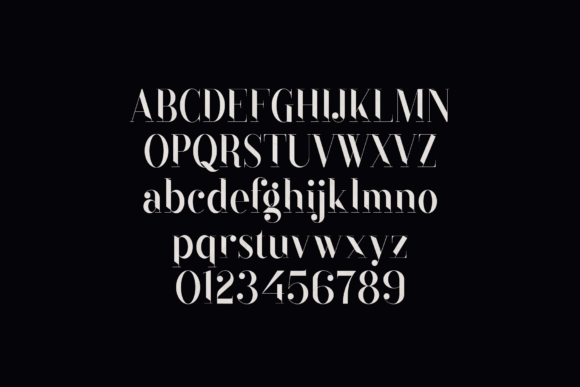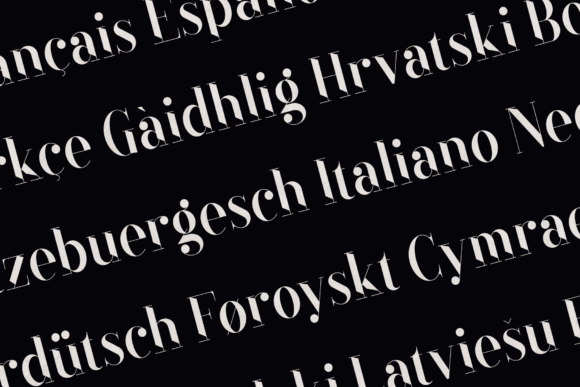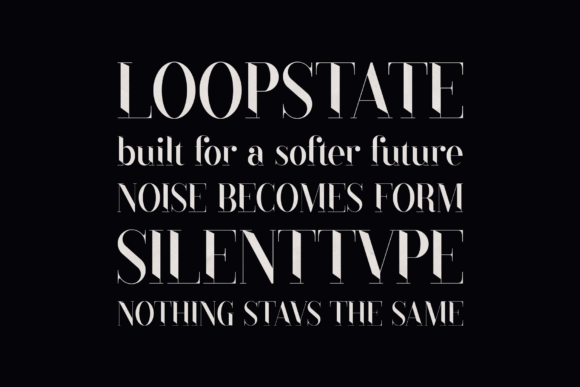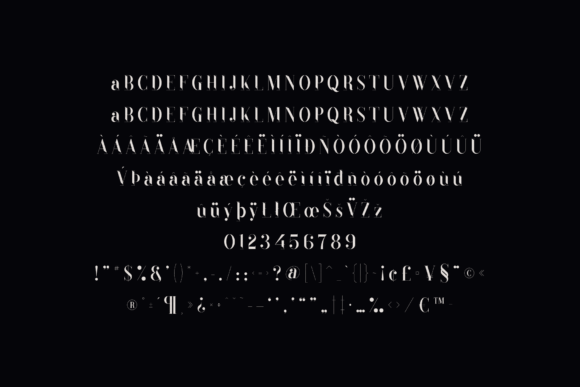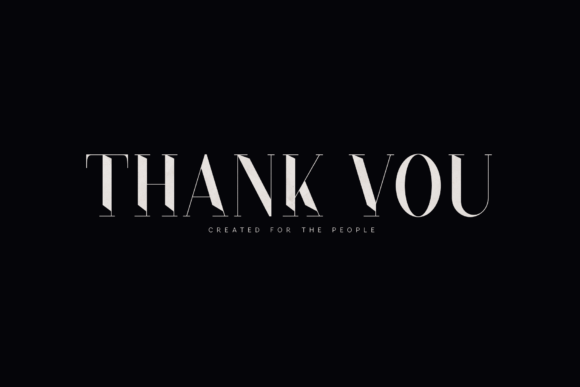
The Power of Black Goose Font: Elevate Your Design with Elegance and Contrast
I’ll never forget the design project that made me fall in love with the Black Goose font. I was working on a luxury branding campaign for a high-end fashion client, and I was struggling to find the perfect serif typeface that exuded elegance and sophistication. The client wanted a font that would make their brand stand out in a crowded market, and I was determined to deliver. That’s when I stumbled upon Black Goose – Cut Edition, a refined modern serif typeface that combines elegant contrast with distinctive sculpted cuts.
An Honest Review: What I Love and What I Don’t
• ✅ Elegant proportions and dramatic contrast make it perfect for fashion, magazines, high-end packaging, and creative branding projects
• ✅ Strong visual impact in headlines, logos, and premium layouts
• ✅ Distinctive sculpted cuts add a unique touch to any design
• ✅ Highly versatile and can be used for both print and digital projects
• ⚠️ Limited availability of certain OpenType features in some design software
• ⚠️ May not be the best choice for body text or long-form content due to its bold and elegant nature
A Practical Guide: Using Black Goose in Your Design Workflow
The Story Behind Black Goose
Black Goose was designed with the goal of creating a modern serif typeface that would exude elegance and sophistication. The designer wanted to create a font that would be perfect for luxury branding, magazines, and high-end packaging. The result is a refined and elegant typeface that combines distinctive sculpted cuts with elegant contrast.
What is Black Goose font best used for? Black Goose is best used for luxury branding, magazines, high-end packaging, and creative branding projects.
Is Black Goose available in multiple weights? Yes, Black Goose is available in multiple weights, making it versatile for a range of design applications.